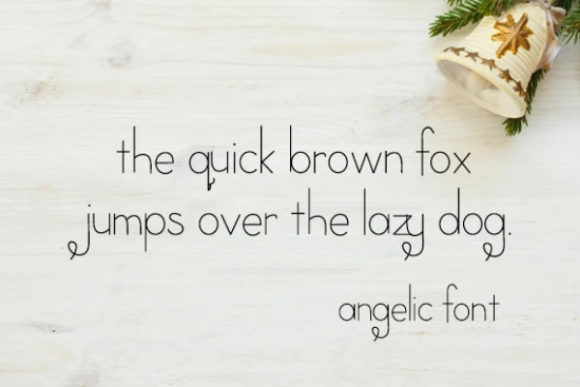
Discover the Elegance of Angelic Font: A Simple yet Powerful Serif Typeface
In the world of typography, fonts play a crucial role in conveying the tone and personality of a design. For designers and crafters looking for a typeface that exudes elegance and simplicity, Angelic Font is an excellent choice. With its clean feel and beautiful arrangement of letters, Angelic Font is perfect for both formal and non-formal designs.
What is Angelic Font?
Angelic Font is a simple and casual serif font that boasts an undeniably clean feel. Its neat and organized structure makes it an ideal choice for designers seeking a typeface that is both elegant and approachable. The font’s classic serif design ensures that it remains timeless, while its clean lines and minimal ornamentation give it a fresh and modern look.
Key Features of Angelic Font
• Clean and Simple Design: Angelic Font features a clean and simple design that makes it perfect for a wide range of design applications.
• Serif Typeface: As a serif font, Angelic Font has small lines or flourishes at the ends of its letters, giving it a classic and sophisticated look.
• Neat and Beautiful Arrangement: The font’s letters are arranged in a neat and beautiful way, making it easy to read and visually appealing.
• Formal and Non-Formal Designs: Angelic Font is versatile enough to be used in both formal and non-formal designs, making it a great addition to any designer’s toolkit.
Uses of Angelic Font
Angelic Font is a versatile typeface that can be used in a variety of design applications, including:
• Branding and Logo Design: The font’s clean and simple design makes it perfect for branding and logo design, where a clear and concise message is essential.
• Digital and Print Media: Angelic Font can be used in digital and print media, including brochures, flyers, posters, and social media graphics.
• Web Design: The font’s legibility and clean design make it an excellent choice for web design, where readability is crucial.
• Crafting and DIY Projects: Angelic Font can also be used in crafting and DIY projects, such as making signs, cards, and other handmade items.
Benefits of Using Angelic Font
Using Angelic Font in your designs offers several benefits, including:
• Improved Readability: The font’s clean and simple design makes it easy to read, even at small sizes.
• Enhanced Elegance: Angelic Font adds a touch of elegance and sophistication to any design, making it perfect for formal and non-formal applications.
• Versatility: The font’s versatility makes it suitable for a wide range of design applications, from branding and logo design to web design and crafting.
• Timeless Appeal: Angelic Font’s classic serif design ensures that it remains timeless, avoiding the risk of looking dated or trendy.
Font Name Angelic Font
Author carina2
In conclusion, Angelic Font is a simple yet powerful serif typeface that offers a clean and elegant design solution for designers and crafters. Its versatility, readability, and timeless appeal make it an excellent choice for a wide range of design applications. Whether you’re working on a formal or non-formal design project, Angelic Font is sure to impress.